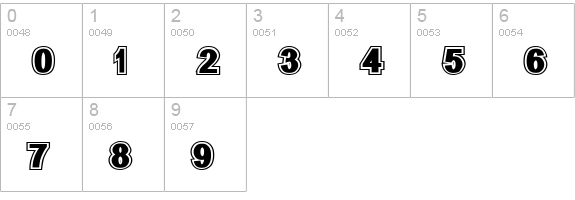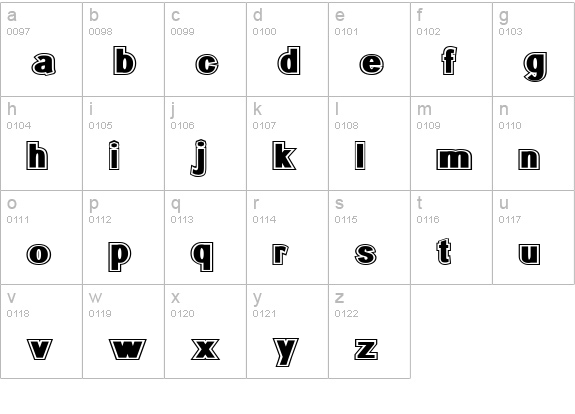
SURROUNDED large Font Details
Introducing SURROUNDED - a captivating and versatile font that will make your designs stand out from the crowd. With its bold and eye-catching appearance, SURROUNDED is the perfect choice for posters, headlines, logos, and more. This unique typeface is sure to grab your audience's attention and leave a lasting impression. But the best part? SURROUNDED is available for free download at FontsMarket.com! That's right, you can easily enhance your projects with this stunning font without breaking the bank. Don't miss out on the opportunity to add a touch of sophistication and style to your designs with SURROUNDED. Download it now and let your creativity soar!